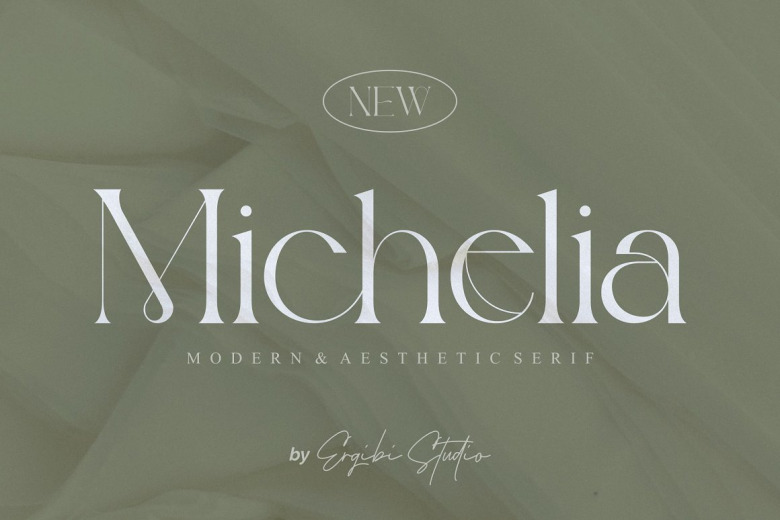
Michelia Font
Michelia is a Serif Font Inspired by the current modern logo with a unique style feel -but with a classic shape. Thus we try to make and make fonts based on current market needs. MICHELIA is ideal for BRANDING and LOGO DESIGN.
This one will give you a classy, elegant, and certainly aesthetic logo. In addition, this font has a unique ligature that is perfect for various works such as posters, packaging, T-shirts, coffee shops, restaurants, a magazine headline, sign/gift card, café, weddings and more.
Michelia Serif Font